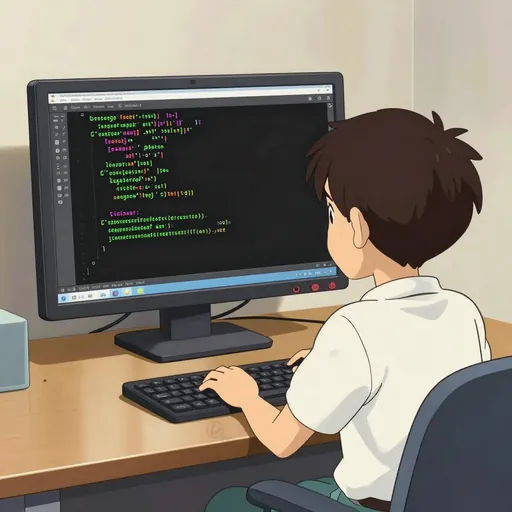
monospaced font
Definition
Noun: A monospaced font is a typeface design in which every character occupies the same amount of horizontal space. This means letters like "i" and "w" have identical widths, creating a uniform, grid-like appearance reminiscent of classic typewriter text.
Usage
A monospaced font is primarily used in technical and coding environments where precise character alignment is crucial. It is also employed for stylistic effect in design or to evoke a retro, typewritten aesthetic.
Examples
- In programming:
- In design:
- General use:
Advanced Usage
- "to render in a monospaced font": To display text using this specific typeface style.
- The terminal application renders all output in a monospaced font.
Variants and Related Words
- Fixed-width font (n): A direct synonym for monospaced font.
- Non-proportional font (n): Another technical term describing the same characteristic.
- Typewriter font (n): A common stylistic name for monospaced fonts that imitate old typewriter output.
Synonyms
- Fixed-pitch font
- Constant-width font
Antonyms
- Proportional font: A typeface in which character widths vary (e.g., "i" is narrower than "m"), which is standard for most body text in books and websites.
Related Phrases
- Monospace formatting: The application of a monospaced font to a block of text.
- Use monospace formatting for the command-line instructions in the manual.
Noun
a typeface is which each character is given the same width (as by a typewriter)